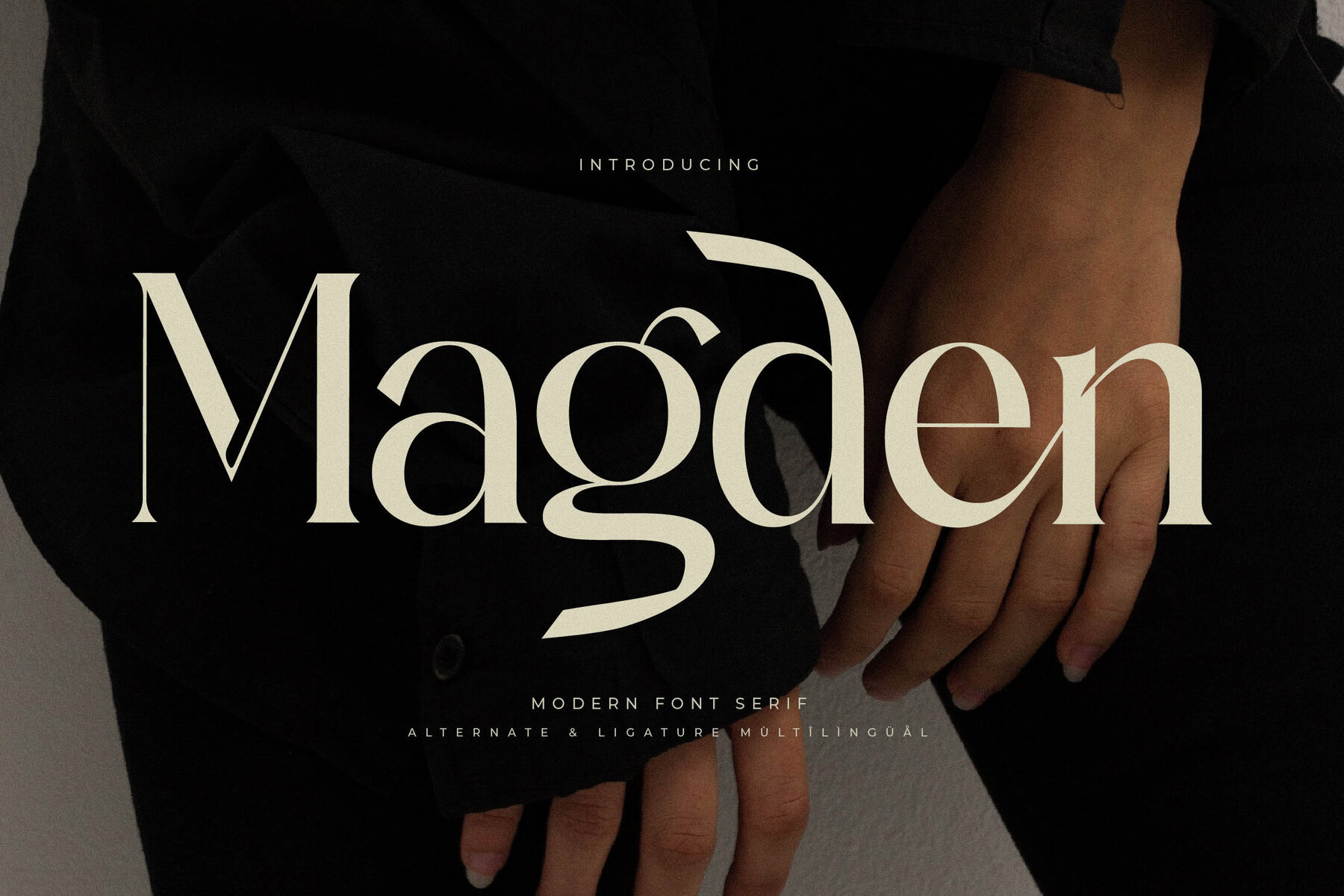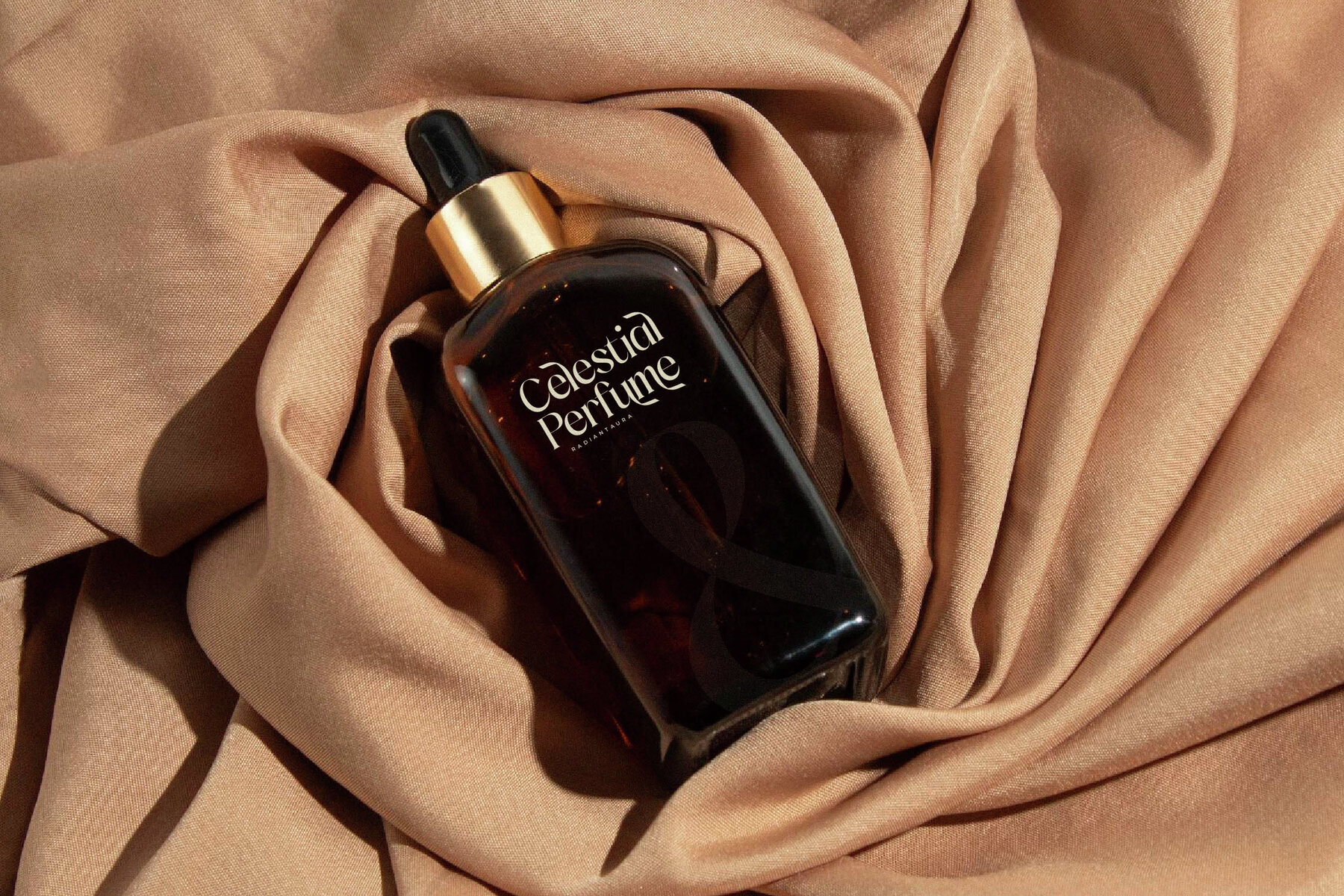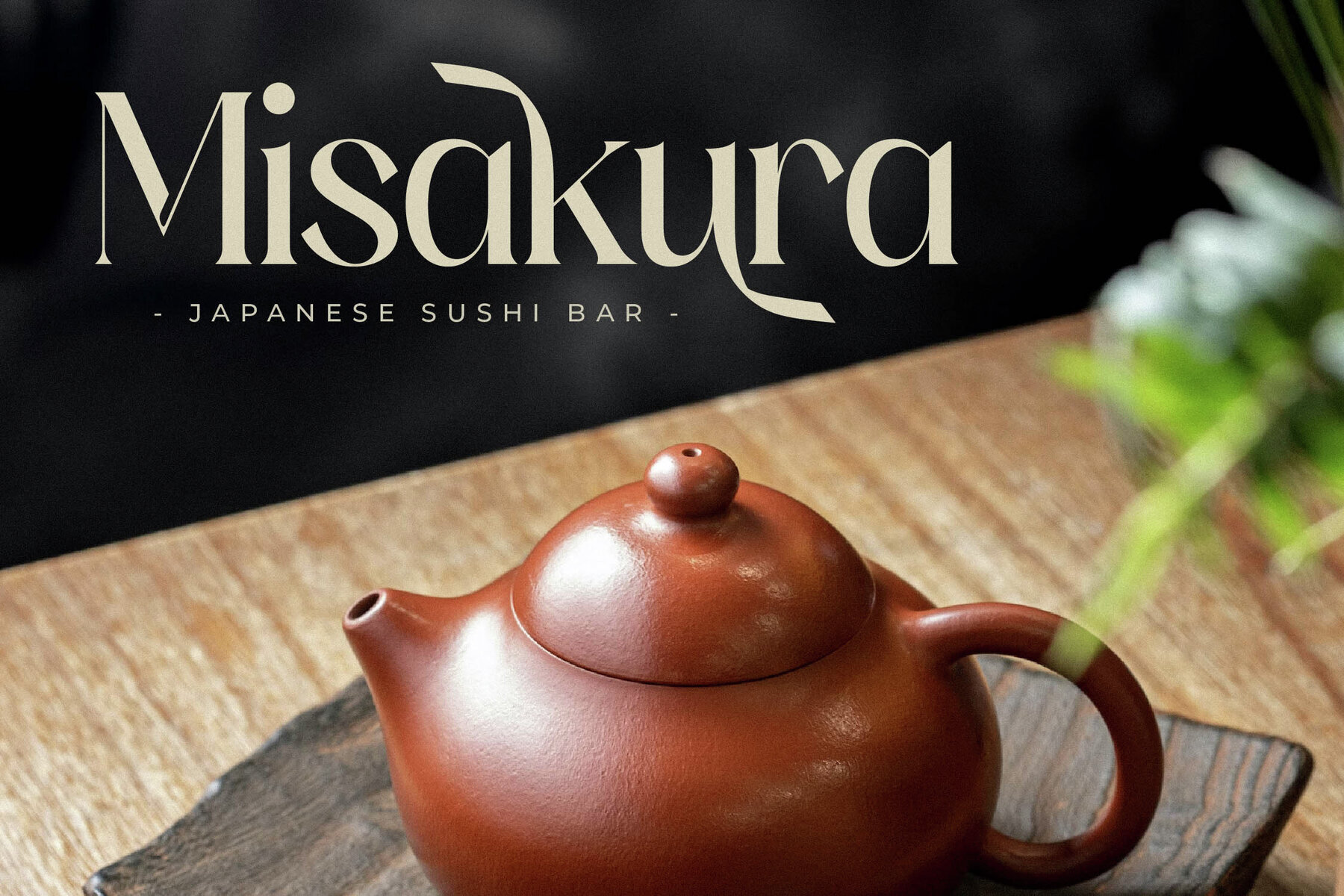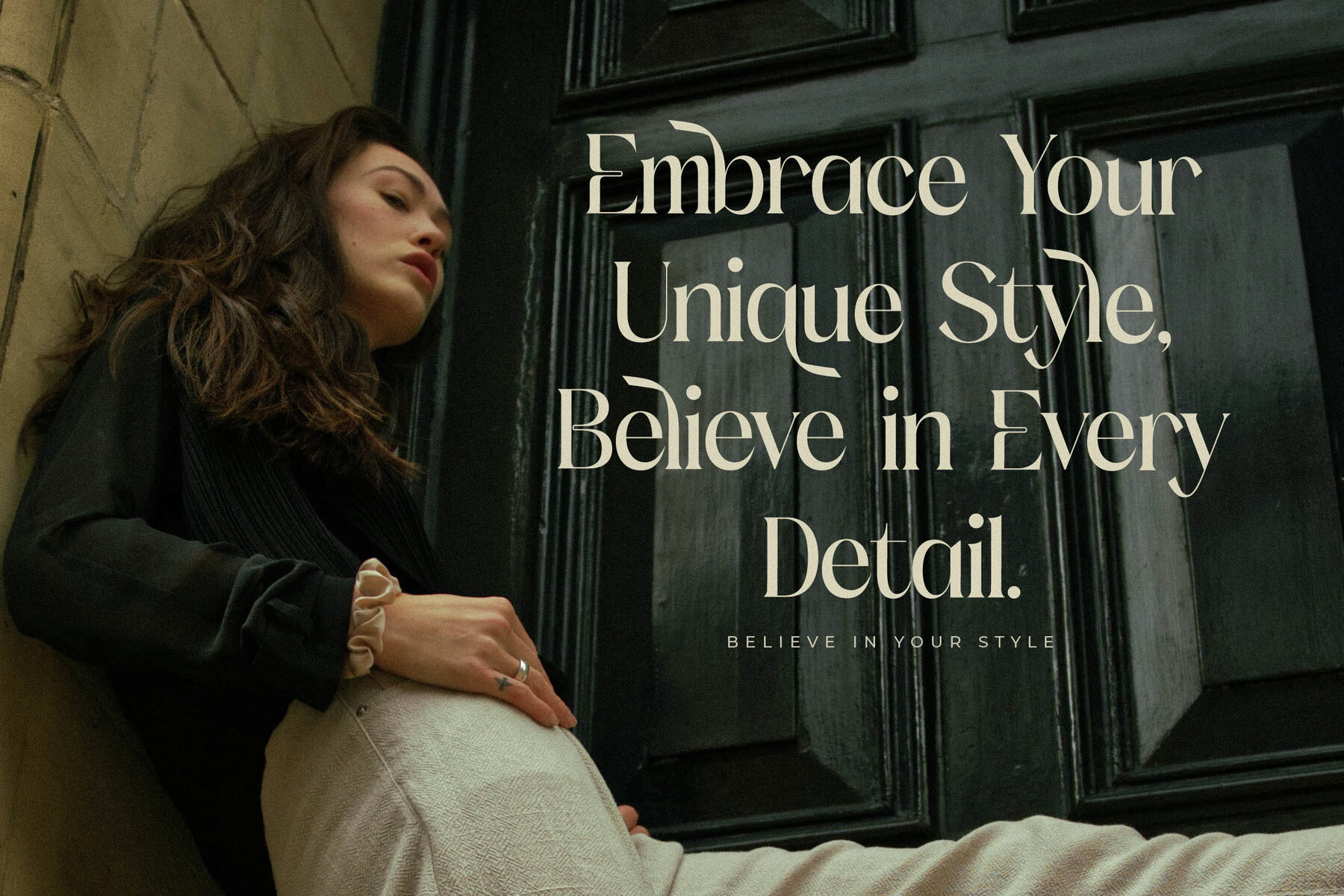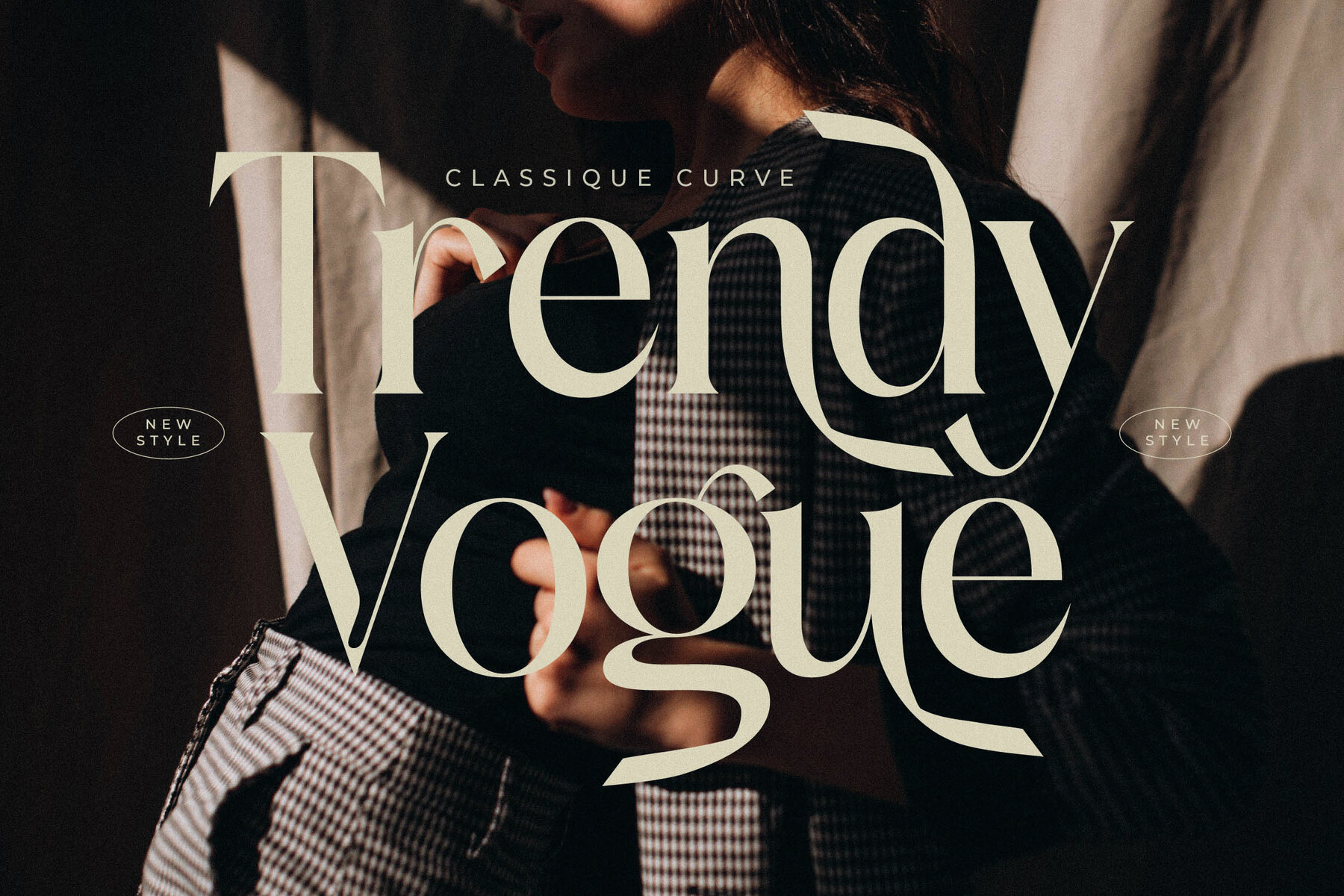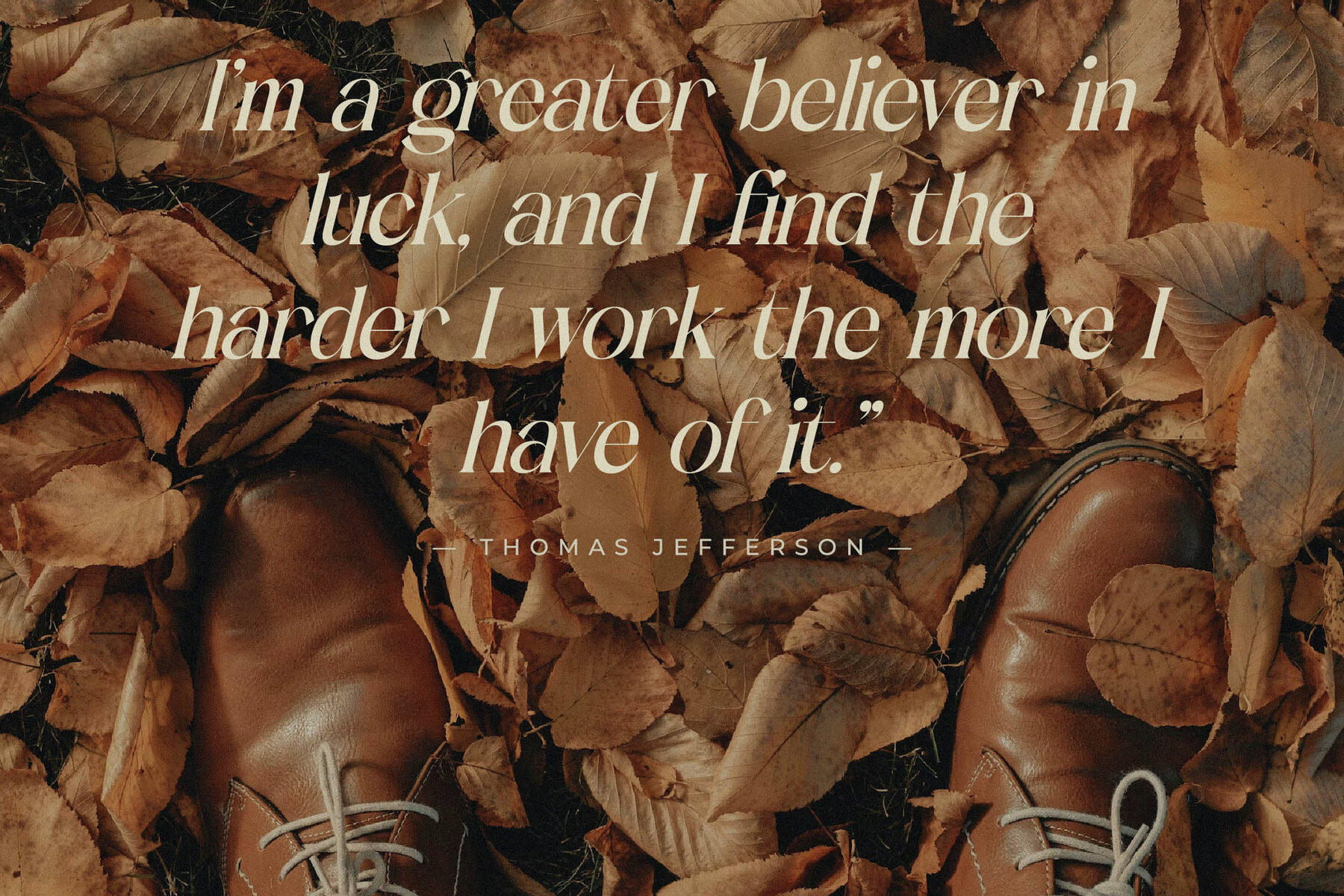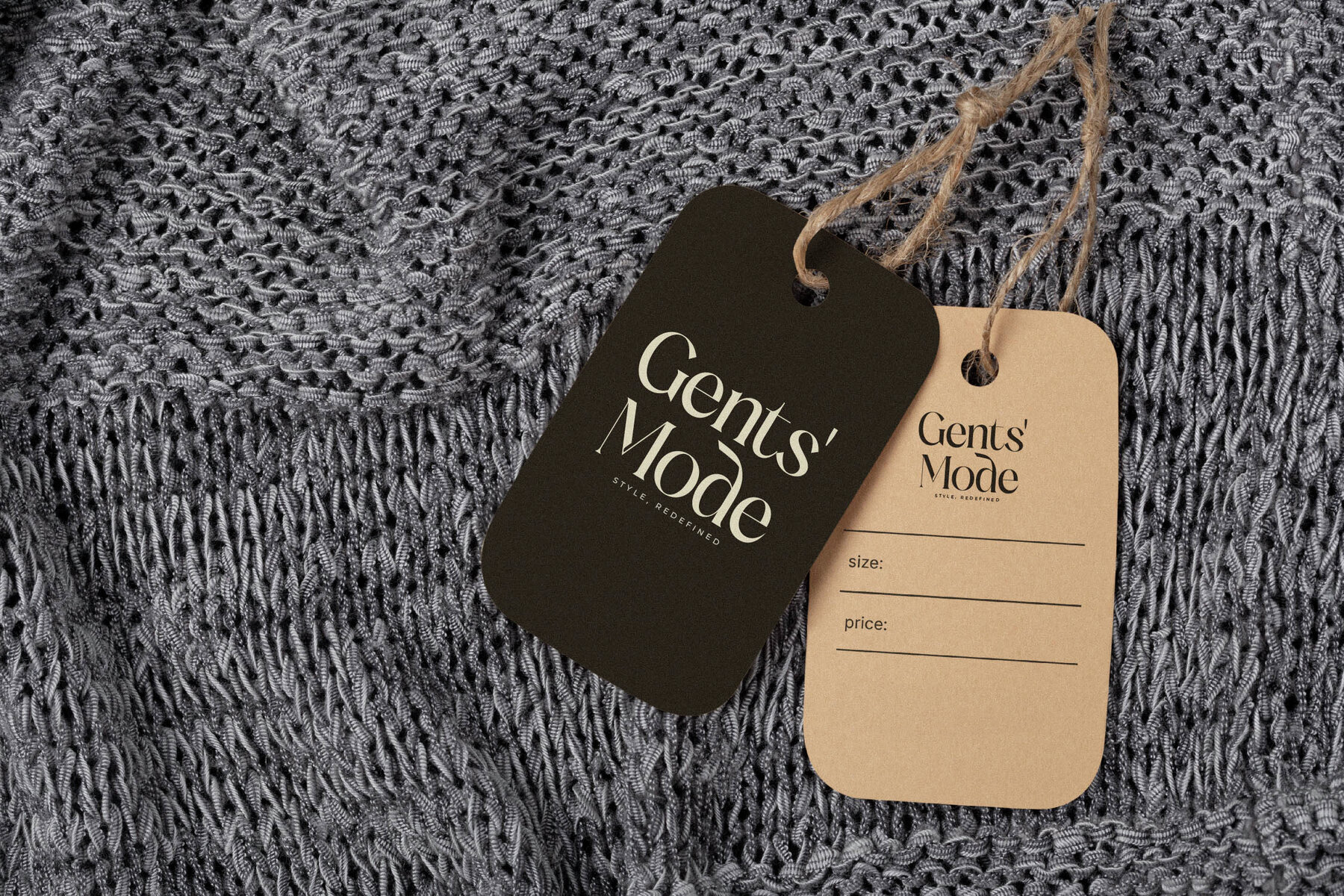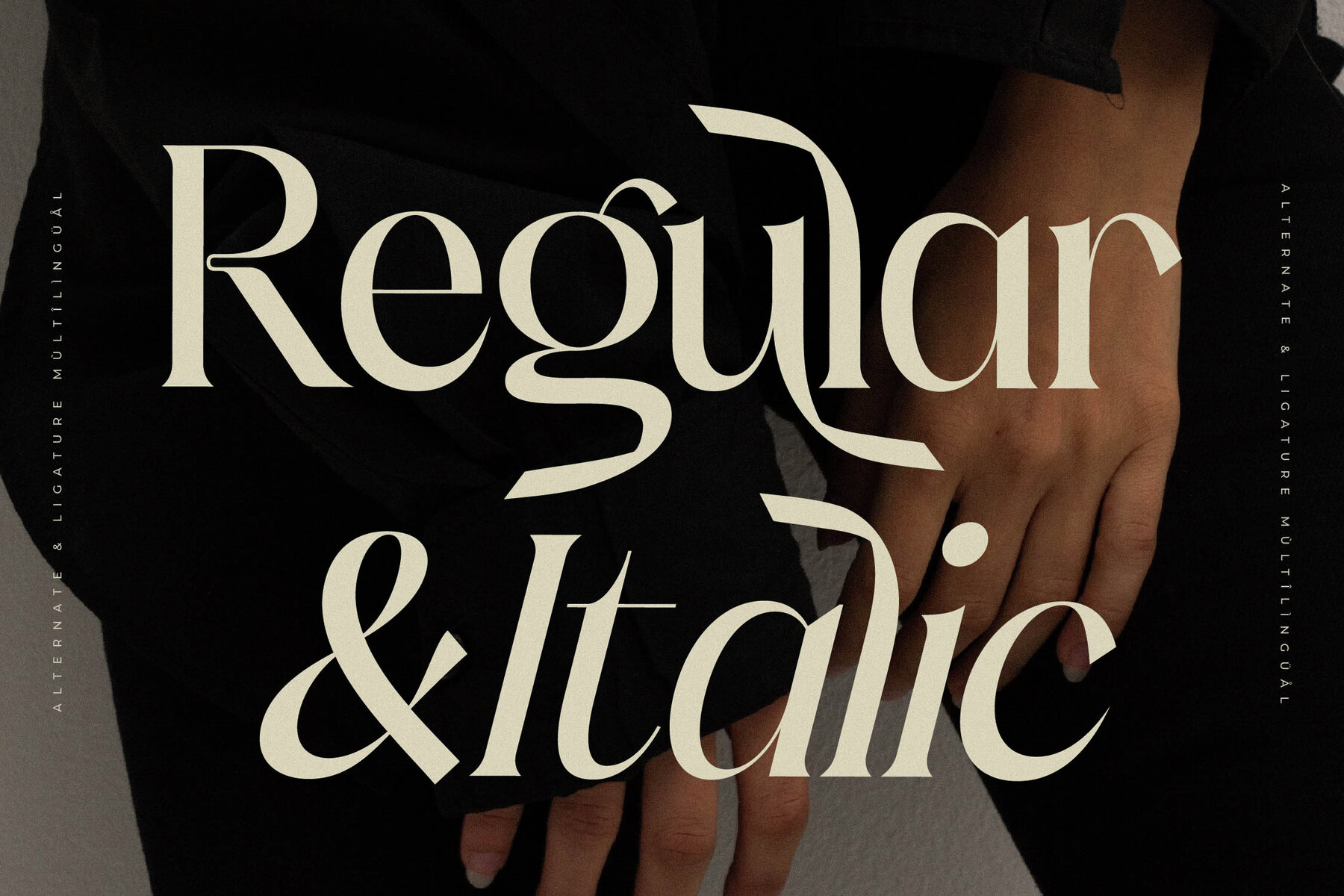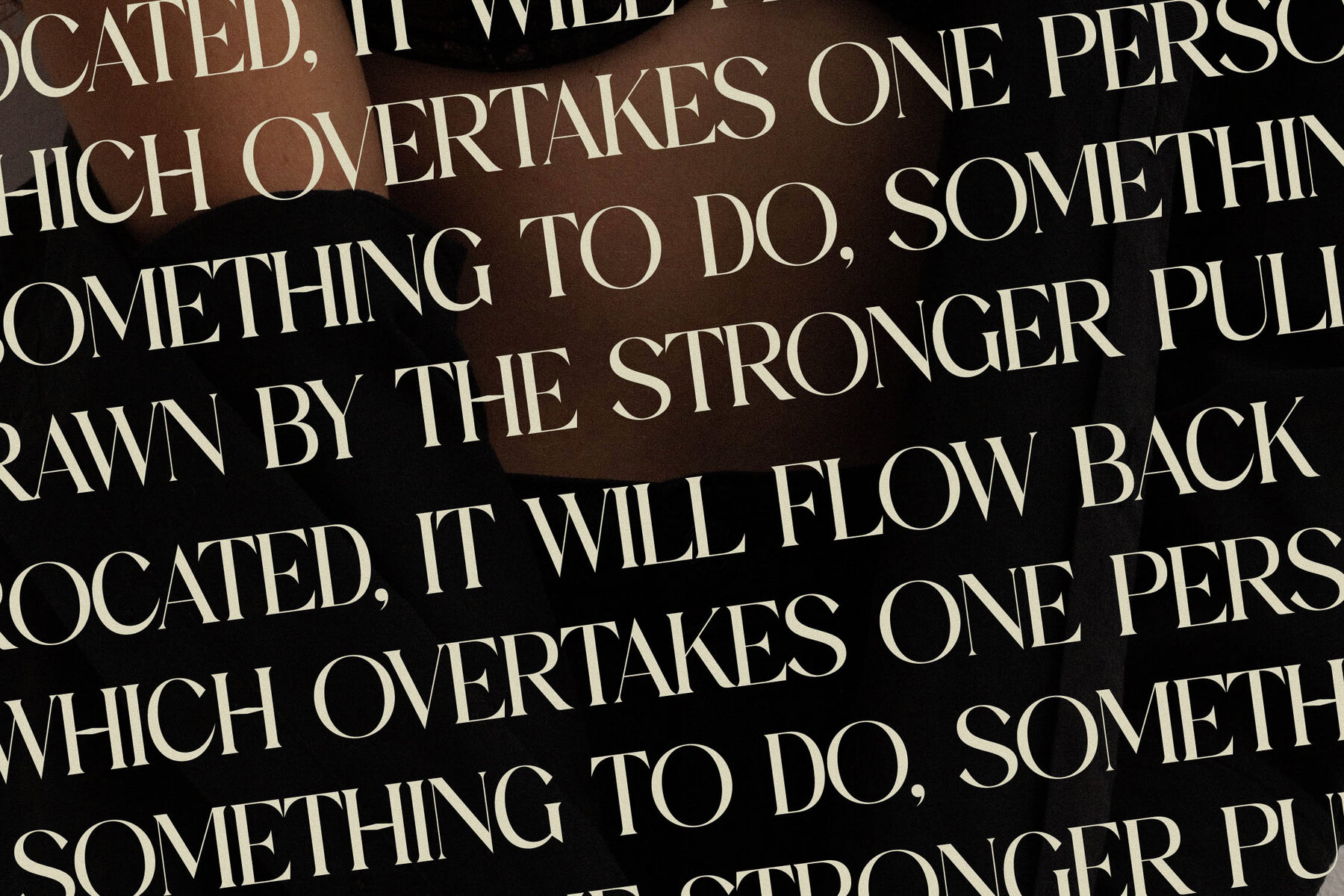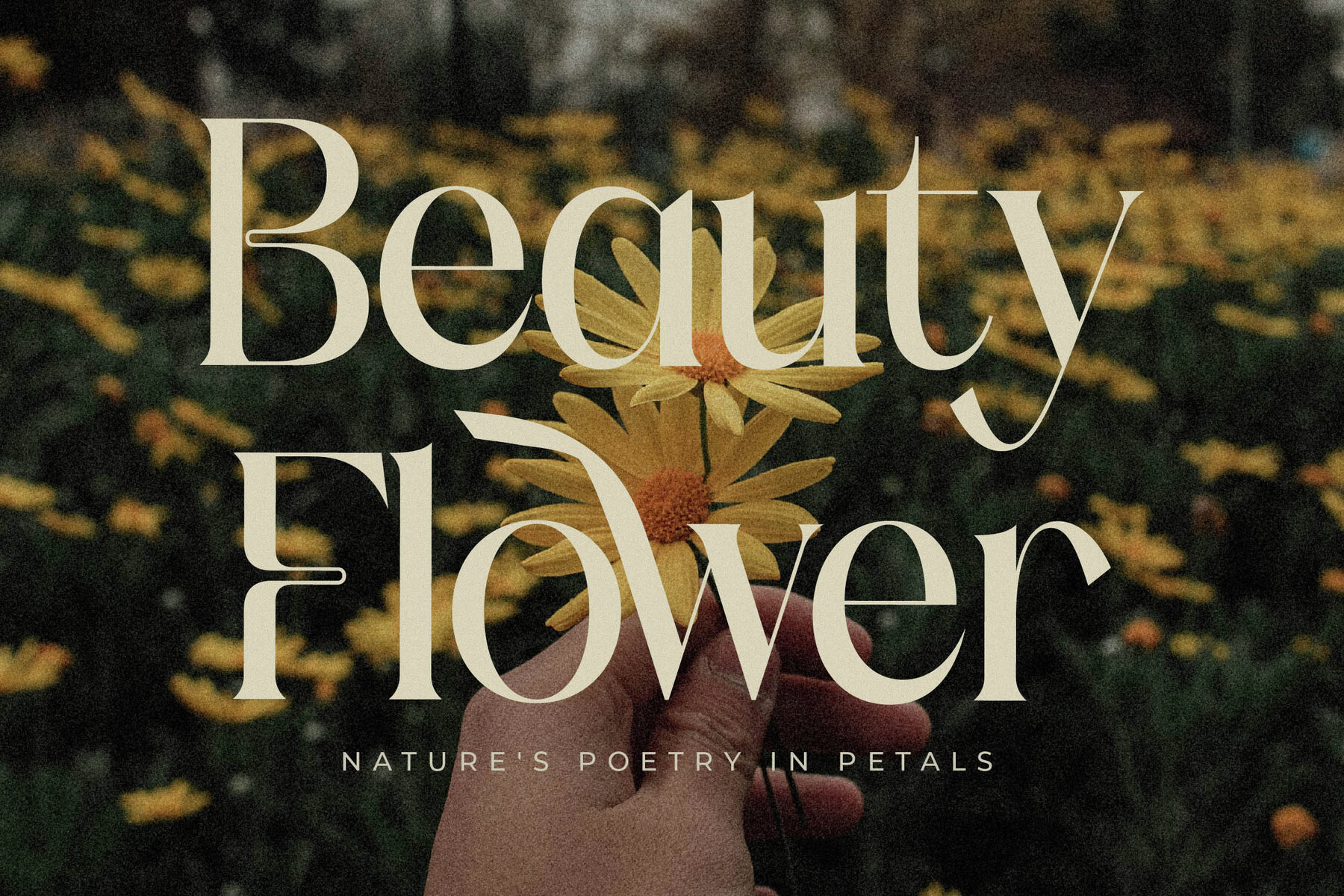
Magden Font
Introducing Magden Typeface by Storytype Studio—a remarkable serif font that effortlessly fuses modern elegance with classic charm. Comprising a distinct style and sophisticated appearance, Magden is an ideal choice for crafting luxury logos, designing book or movie titles, and enhancing fashion brands and magazines. Whether you're working on clothing design, crafting engaging quotes, or more, this typeface adapts seamlessly to your artistic vision. Experience the versatility and refined design of Magden Typeface, a true asset to any creative project.Magden Typeface: A Timeless Blend of Modern and Classic Elegance